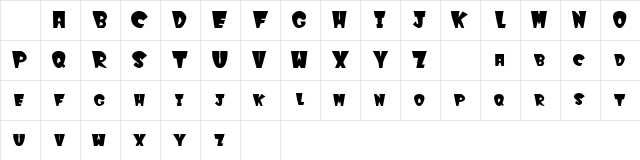
Winks Regular
Designer: Dustin Norlander
Design Context for Winks
Winks is a composed and adaptable typeface that performs quietly and consistently across a wide range of design contexts.